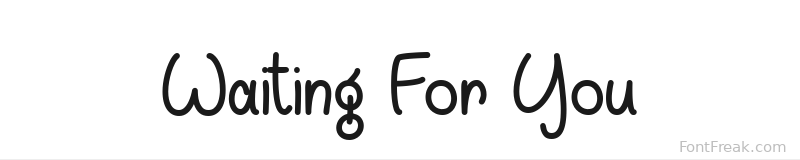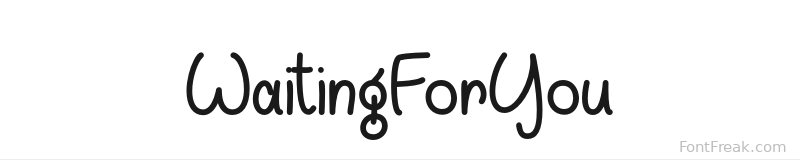
Waiting For You
WaitingForYou
About Waiting For You
The Waiting For You font by Misti Hammers is a delightful handwritten typeface that exudes warmth and charm. Characterized by its playful strokes and casual flair, it offers a unique blend of elegance and approachability. The font features a medium stroke weight with subtle variations that add a dynamic feel, making it perfect for projects that aim to convey a sense of friendliness and creativity. The letters are well-spaced, allowing for easy readability while maintaining a personal touch, ideal for both digital and print media.
This font shines in various applications. It is particularly well-suited for wedding invitations, where its romantic essence can enhance the overall aesthetic. Additionally, it works beautifully for greeting cards, infusing a personal touch that resonates with recipients. Restaurant menus also benefit from its inviting appearance, drawing customers in with its casual vibe. Content creators looking to add a unique flavor to their blogs or social media posts will find the Waiting For You font invaluable, as it captures attention and encourages engagement.
Targeting graphic designers and small business owners, Waiting For You speaks to those who appreciate a blend of professionalism and personality in their branding efforts. It allows creators to infuse their projects with a sense of authenticity and warmth, making it an excellent choice for personal and commercial use alike.
What sets the Waiting For You font apart is its ability to evoke a sense of connection and nostalgia. Its handwritten style invites viewers to pause and appreciate the message, making it a compelling choice for anyone looking to leave a lasting impression. For those interested in enhancing their design toolkit, the Waiting For You font free download is a fantastic opportunity to incorporate this charming typeface into their creative projects.